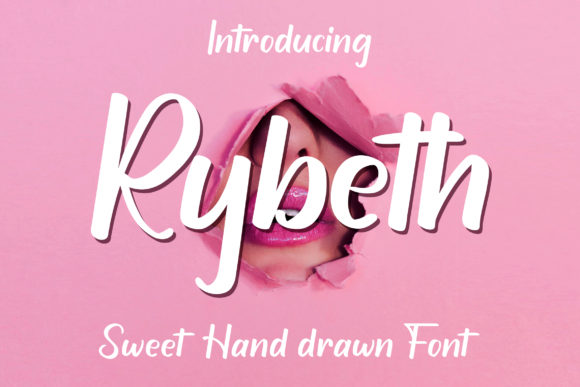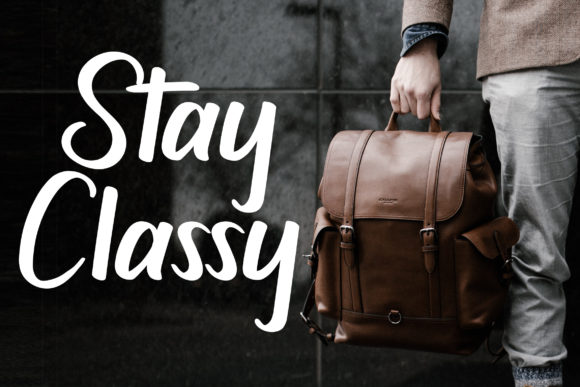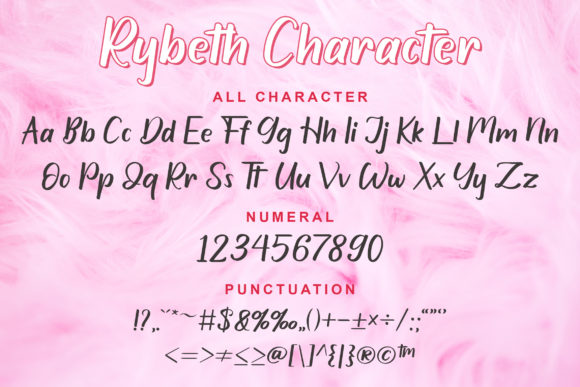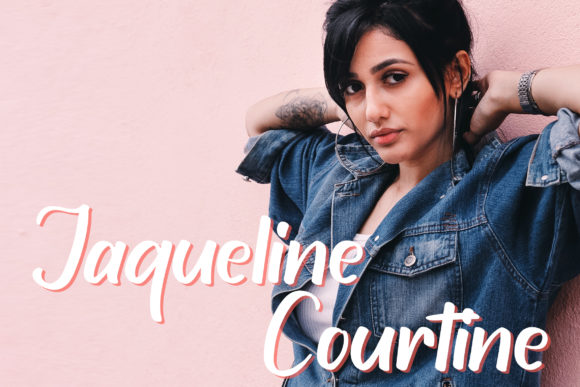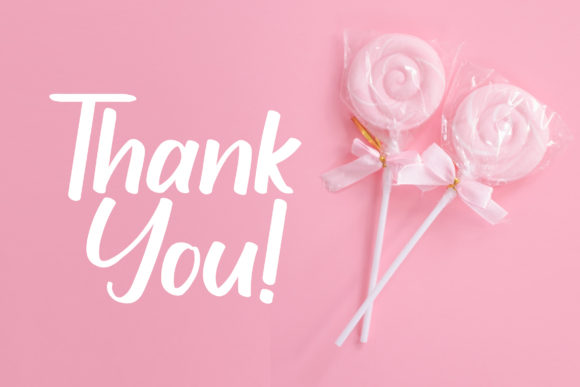
HomeScript FontsRybeth Font Script Fonts Rybeth Font FacebookXPinterestWhatsApp Rybeth Font Poster 2 Rybeth Font Poster 3 Rybeth Font Poster 4 Rybeth Font Poster 5 About Rybeth Font Rybeth is a sweet and playful script that’s great for adding that romantic spark to your next craft project! DOWNLOAD ON CREATIVE FABRICAThis font is sold and delivered by Creative Fabrica. Font Canyon may earn a commission if you buy through this link. People also explored Morgian Font Key Lime Font Yumaidia Font Winter Font Graduate Font Flowers Font Black Font Girkon Spojisba Font Linature Font 287 0 TagsRybeth Font Previous articleRangvald FontNext articleSofee Font LEAVE A REPLY Cancel reply Comment: Please enter your comment! Name:* Please enter your name here Email:* You have entered an incorrect email address! Please enter your email address here Website: Save my name, email, and website in this browser for the next time I comment. Personal Use Free The Winter Personal Use Free Read more about this font Dimensional Look71 Personal Use Free Read more about this font Densmore Personal Use Free Read more about this font Samureix Personal Use Free Read more about this font BLOG Where to Buy American Fonts Online in 2024 Where to Buy American Fonts Online: The Ultimate Guide for 2024 Looking for the perfect American font to elevate your design projects? You're in the... Free Fonts Risk: Why Free Fonts Can Be Dangerous for Designers The 10 Best Handwriting Fonts to Add Personality to Your Designs Using Fonts in Digital Marketing: Tips to Strengthen Your Brand Identity